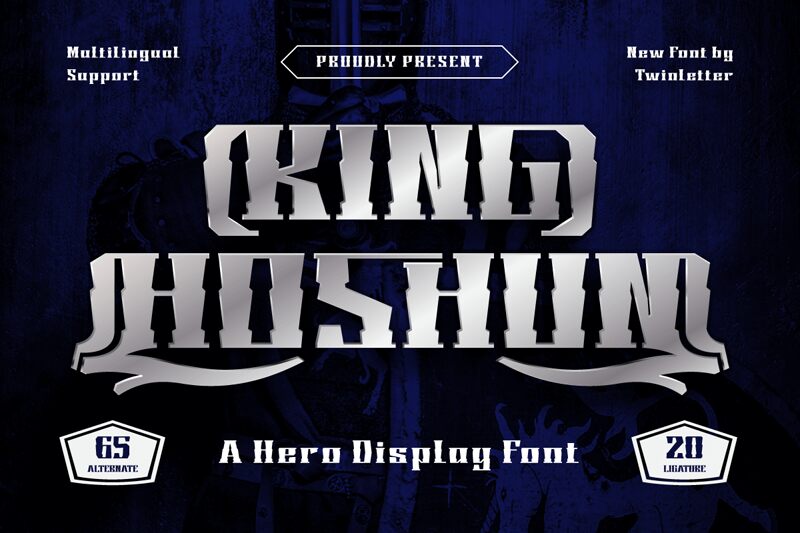
King Hoshun font family is a free font family by twinletter with 2 font styles. This fancy Gothic-inspired typeface impresses with an imposing and strong character and commands presence wherever it is used. Its modern interpretation offers a mix of new concepts while echoing historical influences.
Suitable for medieval or fantasy themes, King Hoshun is visually aesthetic for titles, banners, advertising, and branding. Use it for comic covers, book titles, infographics, illustrations, websites, mobile apps, and even social media posters.